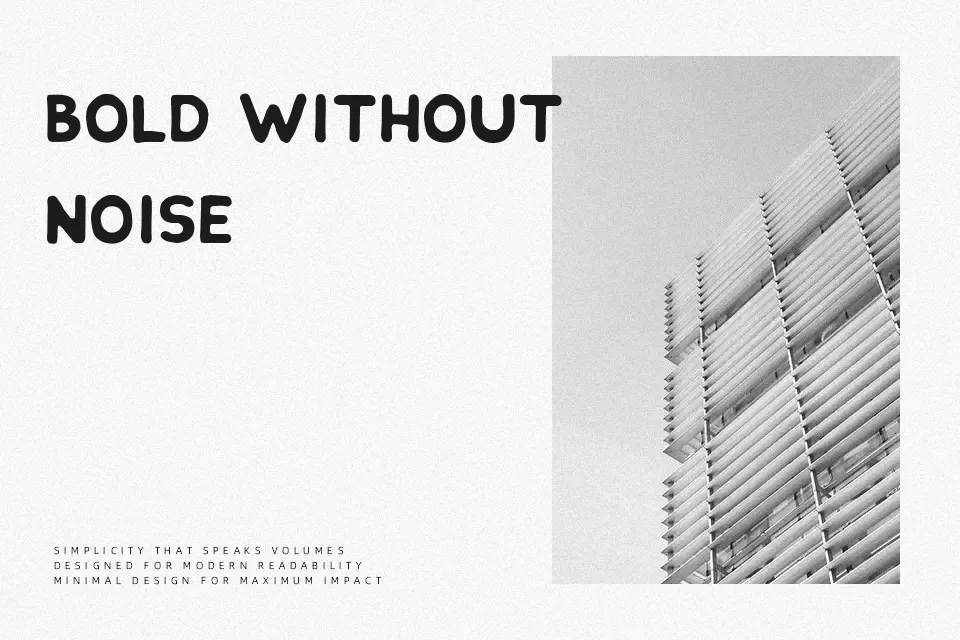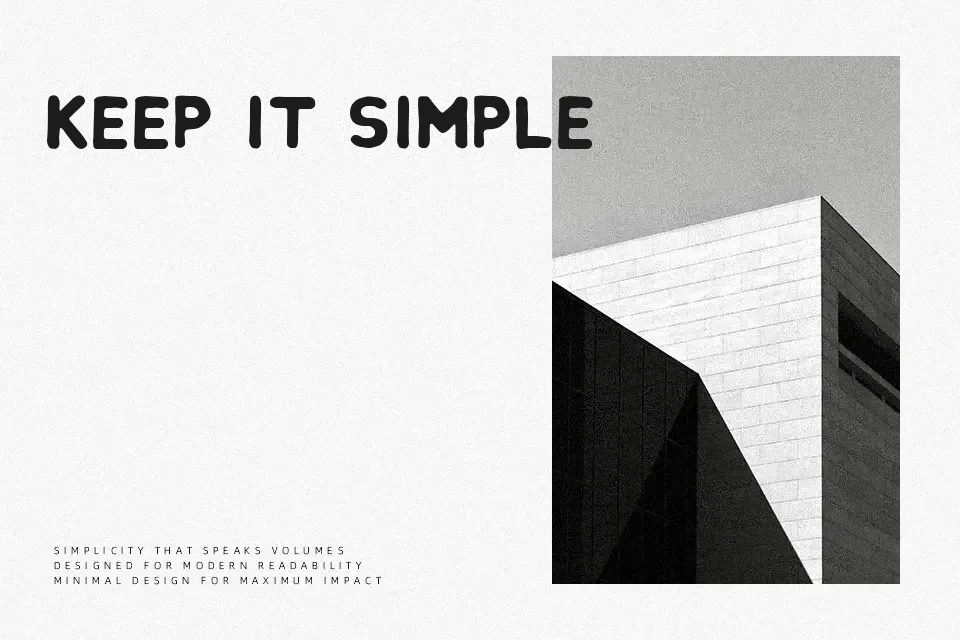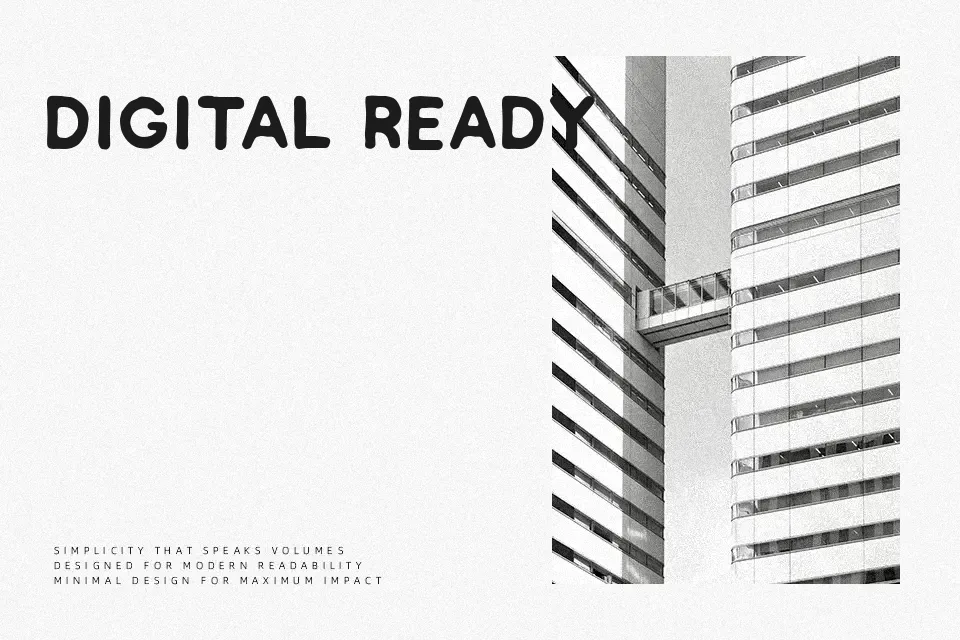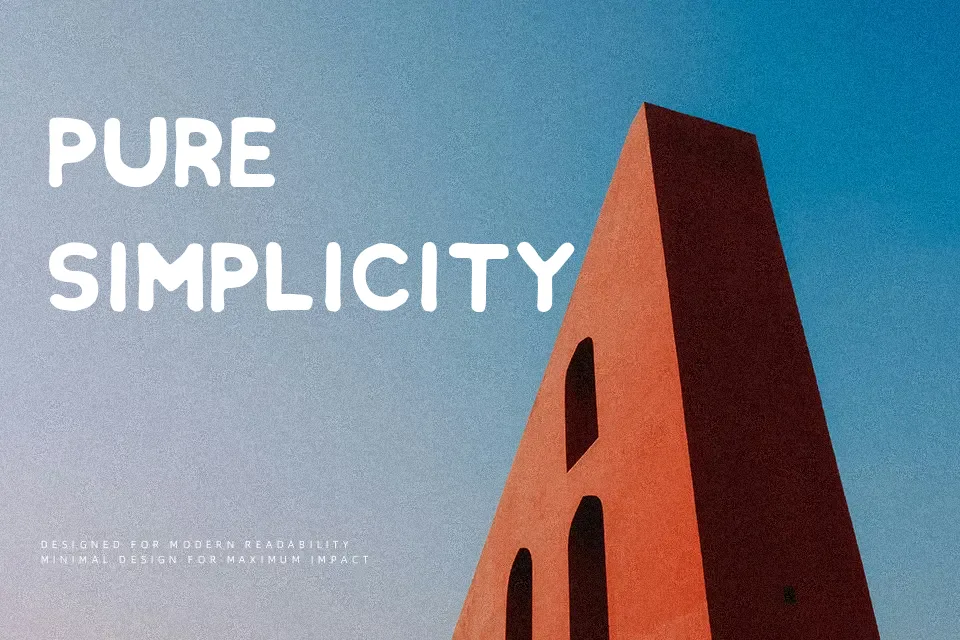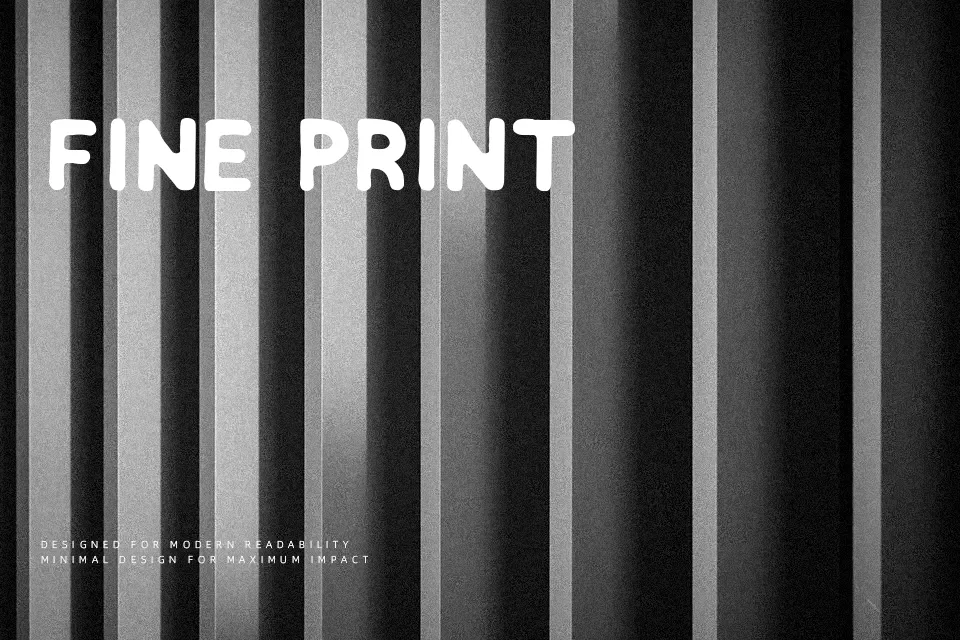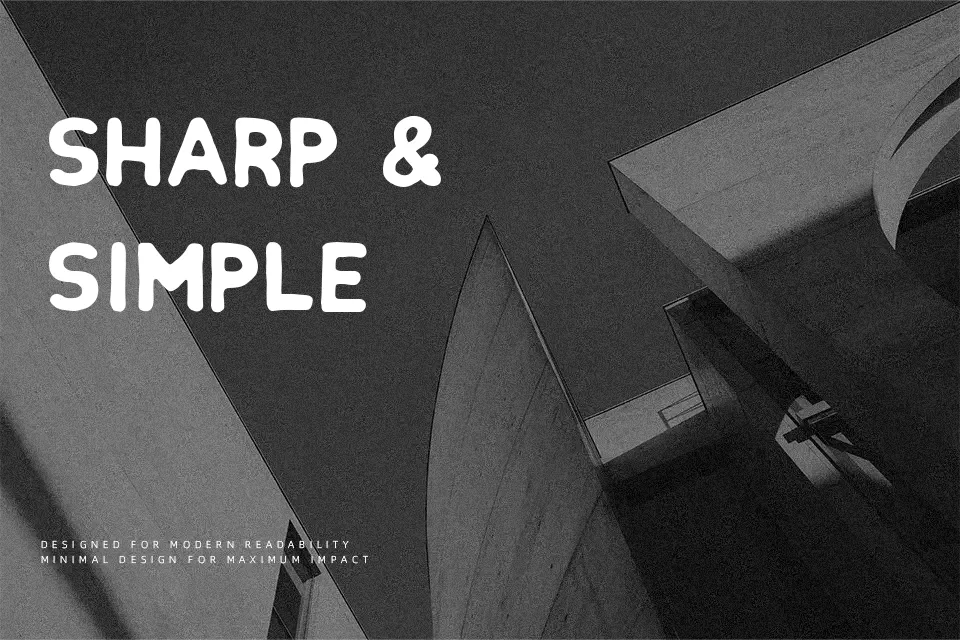
Chlakh Font
Featuring a distinct hand-drawn construction, Chlakh Font brings an organic, rustic presence to display typography. The letterforms exhibit solid stroke consistency, subtly softened terminals, and generous character spacing that together establish a relaxed visual rhythm. Its balanced proportions and sturdy shapes maintain strong legibility across large headlines, storefront badges, and vintage merchandise labels. However, the uneven artisan edges and display-oriented proportions reduce visual comfort when set in continuous text blocks. While less effective for dense editorial paragraphs or small mobile user interfaces, the typeface delivers dependable visual weight and authentic character in bold branding compositions.
Best For: artisan food packaging, vintage apparel prints, restaurant menu headlines, craft beverage labels
Not Ideal For: continuous paragraph reading, small interface captions, dense legal documentation